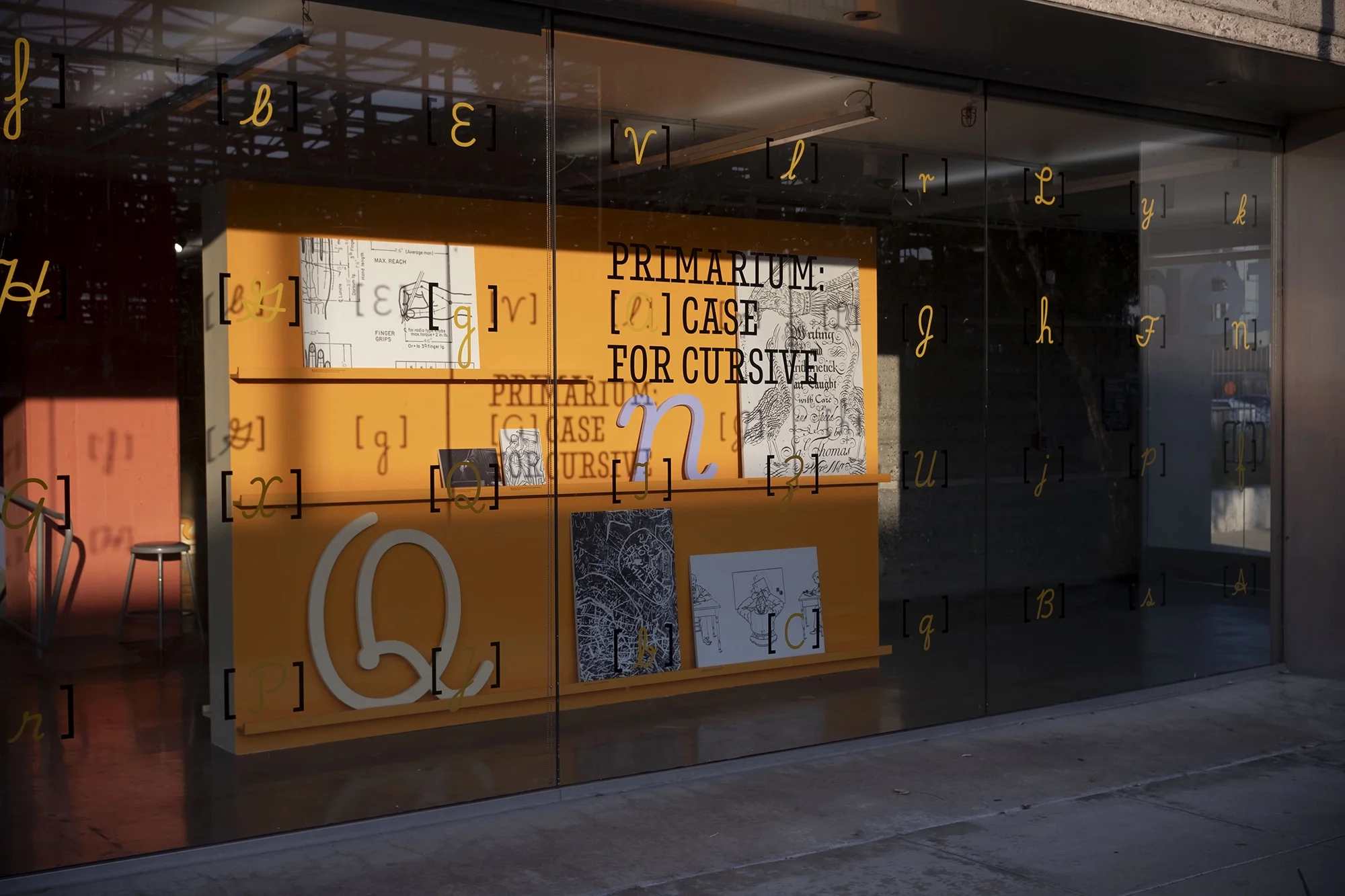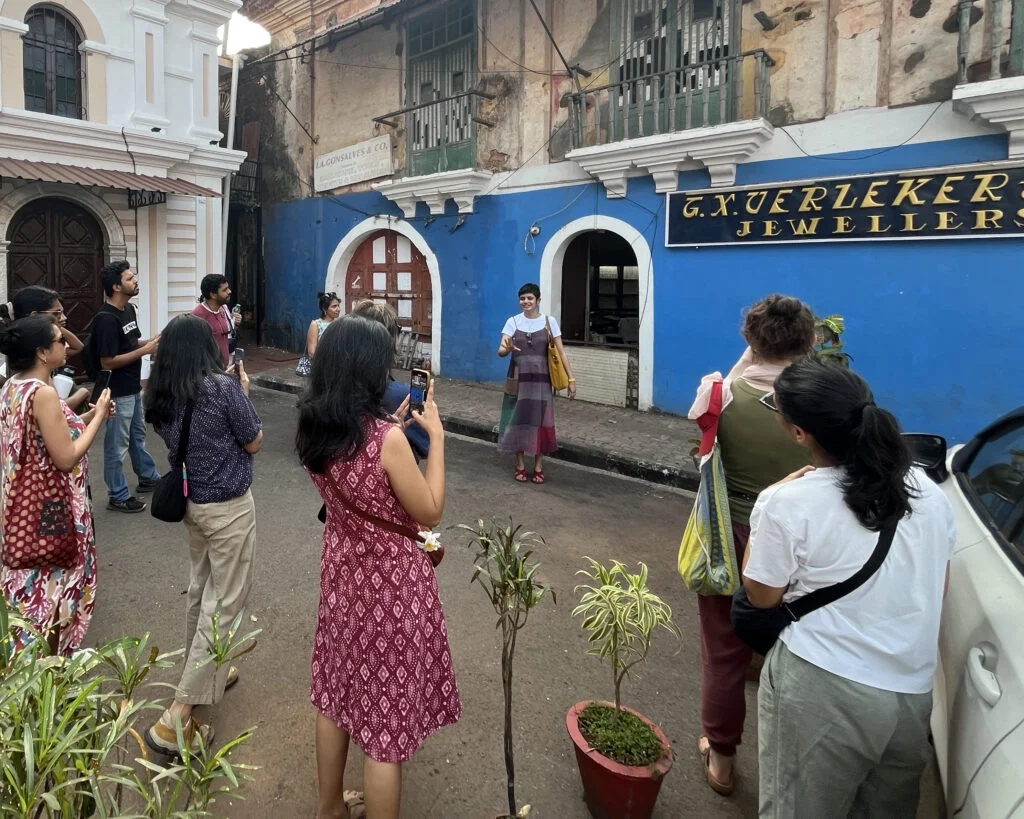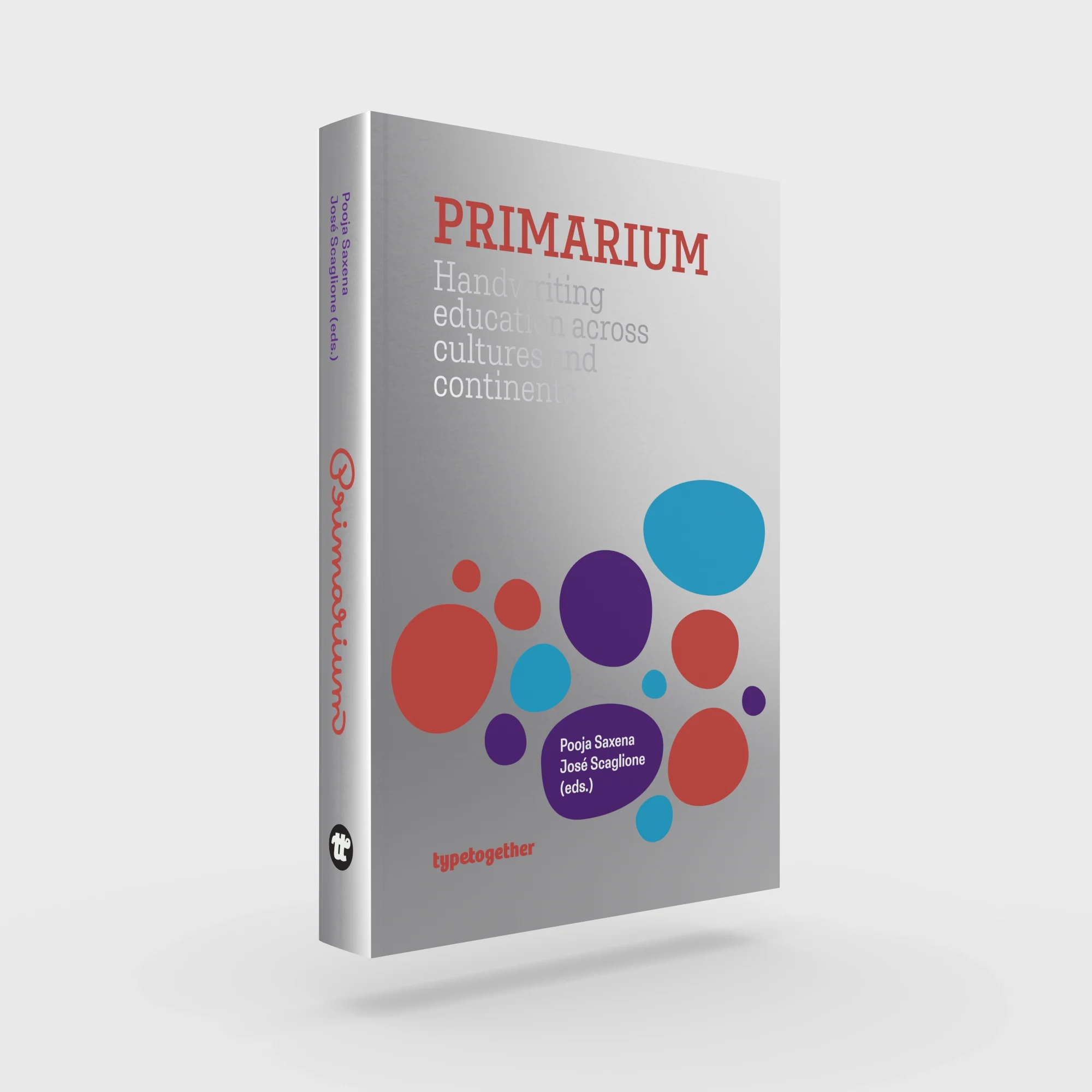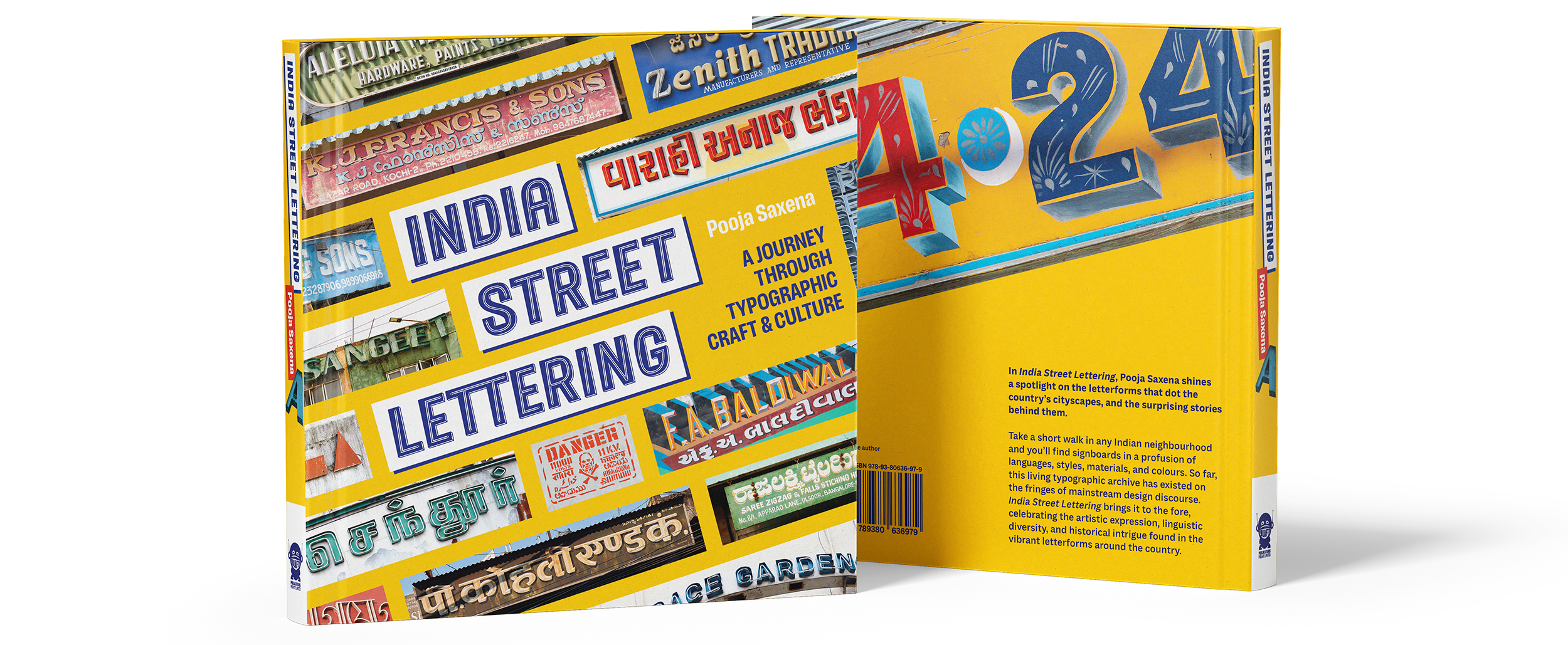
Type Walks
For close to a decade, I’ve been conducting guided typographic tours that reacquaint participants with their neighbourhoods from the vantage point of signage and letterforms. Type walks are a way to recognise how typography in public spaces shapes our experience of cities, and how everyday letterforms are a product of social, cultural, and even legal developments. Through this experience, participants learn about languages and scripts used by the community, and build a scaffolding to meaningfully appreciate sign-makers and their role in nurturing local economies and creating civic identity.
I’ve facilitated type walks in New Delhi, Bengaluru, Udaipur and Panjim (see details of all previous type walks here), and for cultural organisations including Bangalore International Centre, Instituto Cervantes of New Delhi, Ajaibghar and Champaca Bookstore.
Bringing the ABCs Home
Bringing the ABCs Home is a speculative design workshop I debuted at Indian Institute for Human Settlements’ City Scripts festival in 2024. The workshop was based on the conjecture that instead of the imposition of Western printing techniques on Indic scripts and of English on the country’s people, the Latin alphabet came to India and itself underwent a visual metamorphosis as a result of its interaction with local writing systems, their manuscript and calligraphic traditions, and signpainting practices.
Pixel/Play
Conducted under various names since 2019, Pixel/Play explores the connections between digital bitmap letters and their counterparts in textiles and needlework. It highlights the mutability of material, and asks which analog design histories are overlooked when studying digital design. Participants get the opportunity to see a range of contextual material, including specimen images of early digital type, examples of arcade game fonts, knitting and embroidery patterns of alphabets, Indian scripts rendered in textiles, and photographs of mosaic lettering. They then create pixel letters through several techniques: sketching, using stickers, by paper weaving, and LEGO letterpress. The latest iteration of the workshop was co-hosted with Noopur Varma at the Underline Center in Bengaluru.
Draw with Devanagari TypeCooker
This practical workshop is a relaxed and easygoing way for a student or designer interested in Devanagari lettering and type design to move past their hang-ups and get down to drawing. At TypeLab Asia 2024, I conducted this workshop with fellow typeface designer, Namrata Goyal. After introducing the participants to Devanagari TypeCooker and how I devised its prompts, Namrata and I joined everyone in a live drawing session driven by TypeCooker recipes, ending with a friendly critique of everyone’s sketches.
In Pursuit of Typographic Cityscapes
Facilitated for students of publication design at the National Institute of Fashion Technology, this workshop encouraged the participants to embrace unconventional and non-canonical ways of approaching letterforms and their arrangement by documenting and analysing street lettering, and making zines to share their learnings. Through two days of activity, students learned to discard prescriptive rules of Western typography, appreciate local visual histories and artists, and collectively build knowledge about Indic script letterforms. In making zines, we talked about the importance of trial and error in the design process, and different ways of organising photographic materials and making meaning from them.
Type Directors Club — Online, July 2026
A public lecture titled India Street Lettering: Building Missing Archives that focused on methodologies for annotating and analysing the photographs that make up the repository
Type&Faces — London, June 2026
Book presentation about India Street Lettering: A Journey through Typographic Craft & Culture
Women in Type (WiT) Talks — Amsterdam, June 2026
Panelist at Whose Voices get Seen (and Heard) held at letterspace.amsterdam
The Past is Always Present: 100 Tens — Online, October 2025
Invited speaker at Letterform Archive’s virtual salon to showcase my contribution to their tenth anniversary celebration
Institute of Mathematical Sciences — Chennai, July 2025
Invited speaker at the institute’s conference Script Talk to discuss how public signage is crucial material culture
TypeLab Asia — Online, June 2025
Showcased a snapshot of the tools and equipment that I use during my documentation efforts for India Street Lettering
BLAG Meet: Inside Issue 06 — Online, April 2025
Showcased ongoing work towards finding and devising appropriate terminology to describe street lettering, especially efforts to learn local sign-painting terms
BITS11: Brand Identity and Typography Symposium — Bangkok, February 2025
Panelist at Care for Characters to discuss the nuanced responsibilities, cultural impact, and craft behind designing typefaces at TypeTogether
Mahindra Sanatkada Lucknow Festival — Lucknow, February 2025
Public lecture about India Street Lettering, with a focus on Lucknow
Sri Lanka Design Festival — Colombo, November 2024
Invited panelist at Women Shaping Typography: Insights from South Asia and Typography as Brand & National Identity during Script & Structure: Conference on Typography and its Cultural Relevance; also presented a talk about the role of a designer as documentarian
DesignUp — Bengaluru, October 2024
Talk about insights from a decade of designing multiscript logotypes in the Indian milieu (pictured at the top of the page § Image credit: DesignUp)
BLAG Meet: Inside Issue 04 — Online, March 2024
Introduced India Street Lettering, and the intent behind self-publishing zines
Bangalore International Centre — Bengaluru, June 2023
Public lecture about India Street Lettering complemented with a showcase of design publications from around the world on public signage and typography
TypeLab Asia — Online, June 2023
Talk reflecting on a year of publishing my design newsletter, I Spy with my Typographic Eye
Typography Day — Online, 2022
Presented ongoing research from Primarium
Mumbai Typostammtisch — Online, 2022
Talk about technical considerations to keep in mind while choosing Devanagari typefaces for a project
TypeWknd — Online, October 2021
Presented research from my master’s dissertation about the typographic design of lithographed books from 19th century north India
TypeTech Meetup — Online, June 2021
Invited panelist for a session on tools and collaborative type design
TypeWknd — Online, September 2020
Talk about type walks, co-presented with Tanya George
Glug Birmingham Collector’s Edition — Online, October 2020
Talk about collecting Indian ephemera
Time to Talk Type: ATypI Working Seminar — Colombo, March 2019
Invited panelist for a session about type design in South Asia
Ambedkar University Delhi — New Delhi, September 2018
Invited panelist for a session titled Design and Open Knowledge Movement
Typography Day — Bengaluru, February 2016
Talk about the development of Ol Chiki typeface, Guru Gomke, and associated digital infrastructure, co-presented with Subhashish Panigrahi.
Teaching & Workshops
TypeLab Asia — Online, June 2024
Group drawing using Devanagari TypeCooker prompts (see details)
Indian Institute for Human Settlements — Bengaluru, May 2024
Speculative lettering workshop reimagining the Latin alphabet (see details)
Underline Center — Bengaluru, May 2024
Workshop exploring the connections between digital bitmap letters and their counterparts in textiles and needlework (see details)
National Institute of Fashion Technology — Bangalore, May 2024
Guest workshop: Introduction to unconventional approaches to letterforms through street lettering and zine-making (see details)
Practica Program (Latin Two) — Online, March 2024
Guest lecture: Disrupting the design canon through local histories
UXNow — New Delhi, January 2024
Workshop exploring the connections between digital bitmap letters and their counterparts in textiles and needlework (see details)
3 Sided Coin — Online, January–February 2023
Weekly workshop sessions with the studio’s designers to strengthen their foundations of Devanagari typography
Maryland Institute College of Art — Online, 2021
Guest lecture: Design for a multicultural and multilingual world
University of Applied Arts, Vienna — Online, May 2020
Guest workshop: Introduction to Devanagari through pixel type
OwnPath — Online, 2019
Multi-session workshop about typeface pairing and selection for design professionals
Pearl Academy — Noida, 2019
Guest workshop: Workshop exploring the connections between digital bitmap letters and their counterparts in textiles and needlework (see details)
Indian Institute of Art and Design — New Delhi, 2017
Guest course: Introduction to typeface design
Pearl Academy — Noida, 2017
Guest course: Introduction to typeface and publication design
Srishti School of Art, Design & Technology — Bengaluru, March 2016 & 2017
Elective course in typeface design
L’École de Design Nantes Atlantique — Noida, 2015
Guest lecture: Introduction to Indic scripts